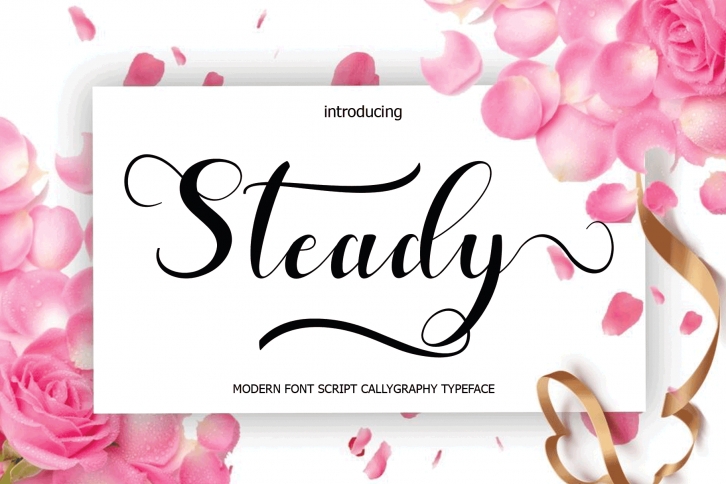
Steady is a gorgeous font that was realeased on November 12, 2019. The font can be used in many style contexts and design environments. Perfect for invitations, magazines, websites, logos, and more! It was designed by Letterfonts and the file size is 13.97 MB. Thanks for checking out this font!